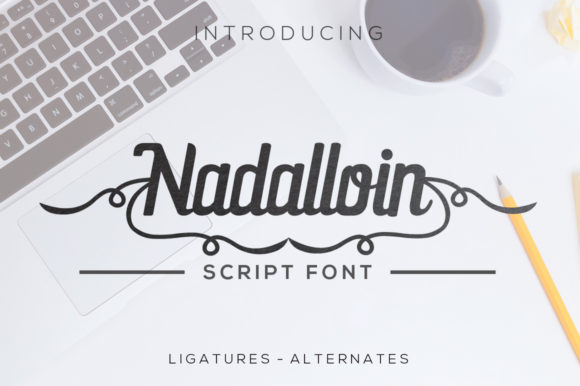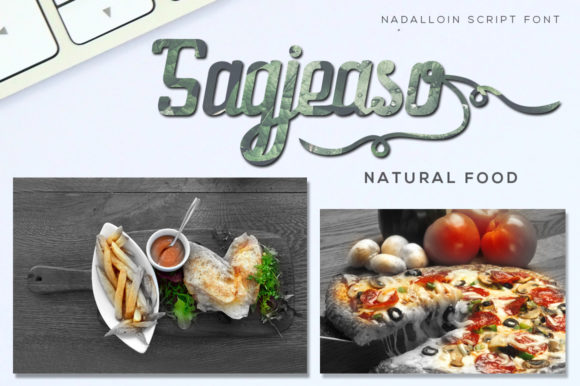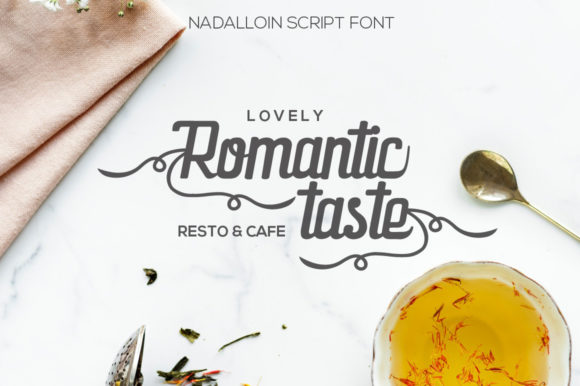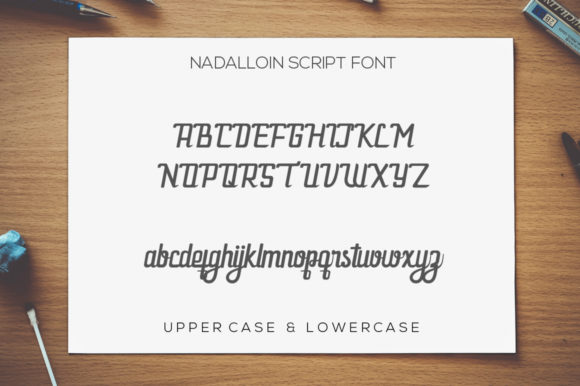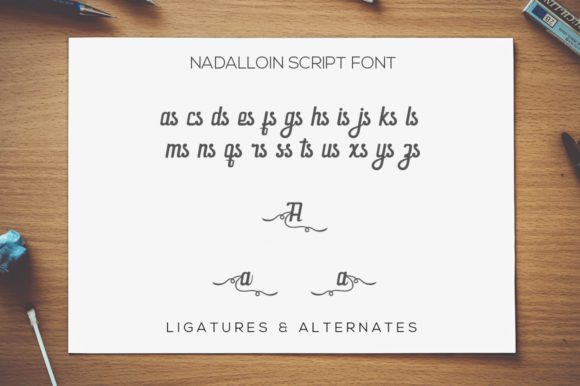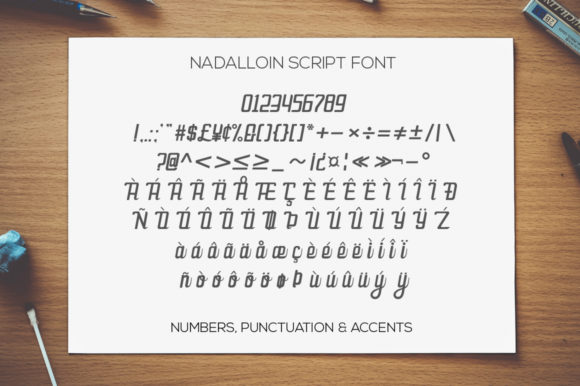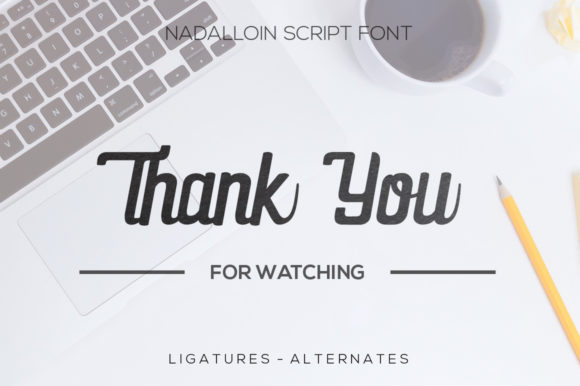
Nadalloin Font
About Nadalloin Font
The Nadalloin is a geometric modern script font with vintage ornaments.
It’s suitable for greeting cards, branding materials, business cards, quotes, posters, and more!